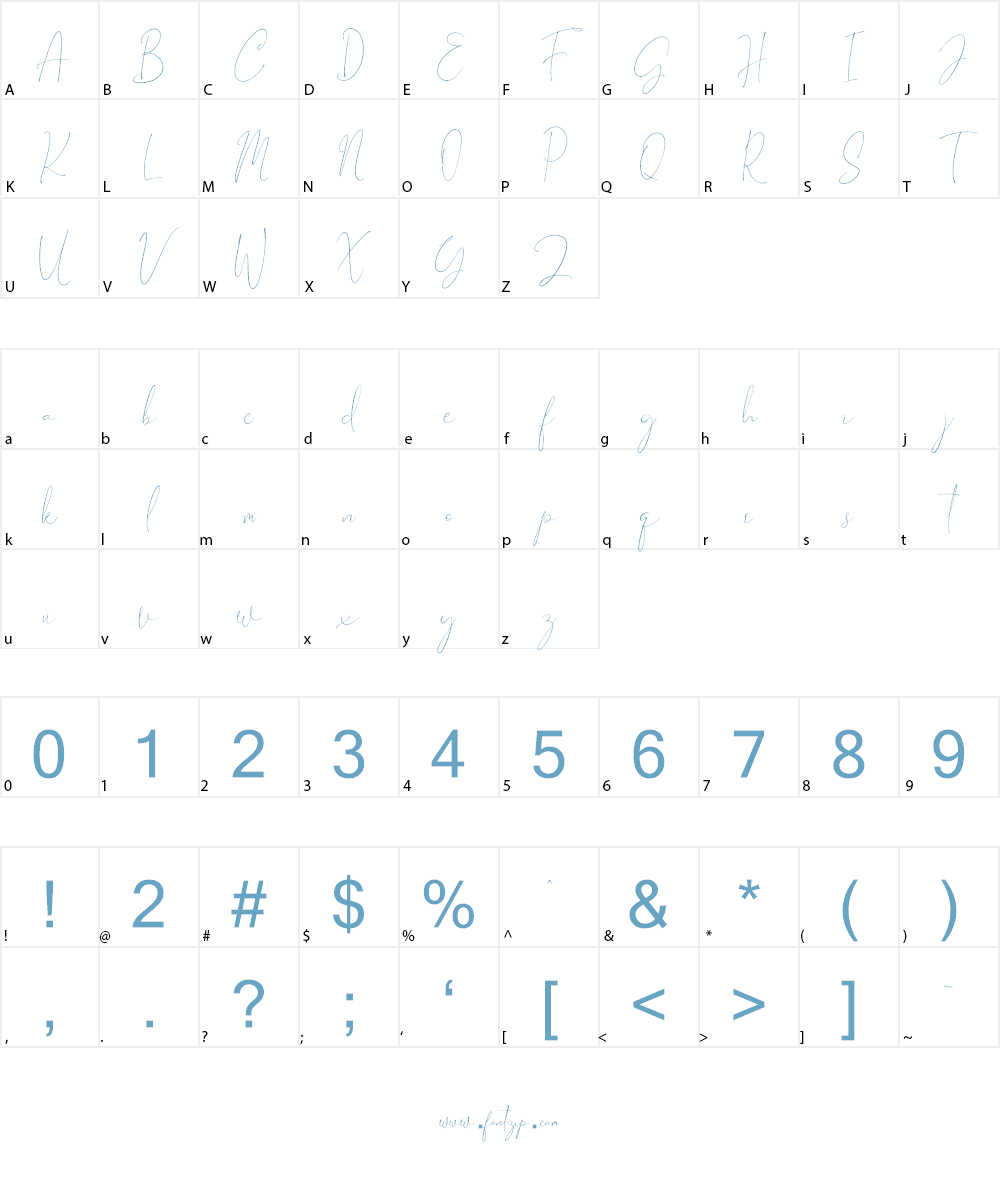
Say hello to Gravity Font a luxury handwritten and signature style. With four variants of style, you can create more signature and handwriting fonts you like. This font is perfect for branding projects, signatures, quotes and weddings.
Gravity 1 (inc. Swashes, Handwritten Stylistic Set and Ligatures)
Gravity 2 (inc. Handwritten Stylistic, Slant Version and Ligatures)
Gravity 3 (inc. Signature Stylistic Set and Ligatures)
Gravity 4 (inc. Signature Stylistic Set, Slant Version, and Ligatures)
Uppercase and Lowercase letters
Numerals and Punctuation
International Character Support